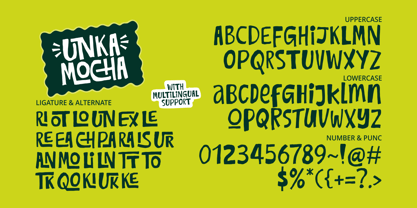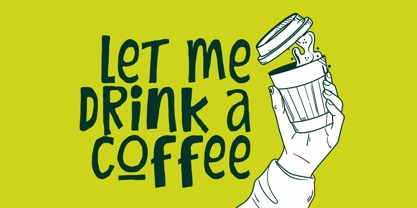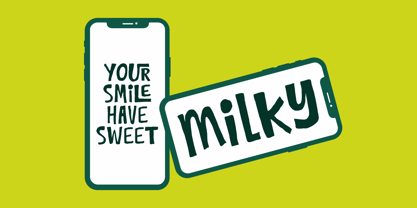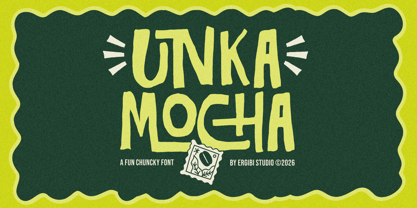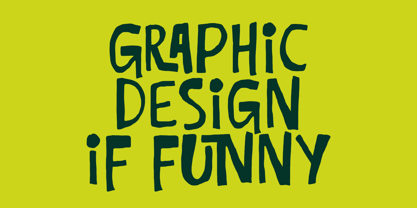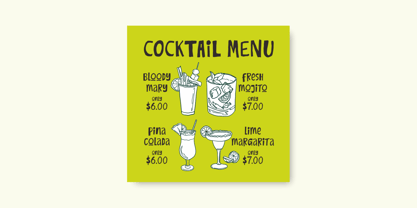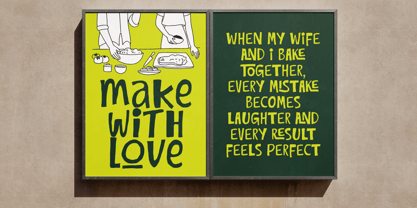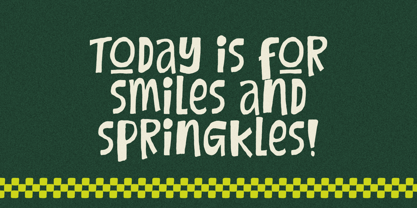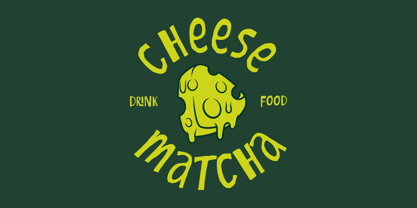
Unka Mocha
by Ergibi Studio
The Unka Mocha Font Family was designed by Riyadh Rahman and published by Ergibi Studio. Unka Mocha contains 1 styles. More about this family
Unka Mocha is a playful chunky display font designed to bring warmth and personality into your work. Its bold, handcrafted letterforms feel friendly and relaxed, making any design look more inviting and full of character. Whether used for branding, packaging, posters, or social media visuals, this font helps create a cheerful and memorable impression. With its organic shapes and fun rhythm, Unka Mocha fits perfectly in projects that need a casual, approachable, and creative vibe. It works beautifully for food branding, children’s designs, merchandise, or any project where you want typography to feel lively, expressive, and full of charm rather than stiff or overly formal. if you have any questions, don’t hesitate to contact us Ergibi Studio
Designers: Riyadh Rahman
Current Foundry: Ergibi Studio